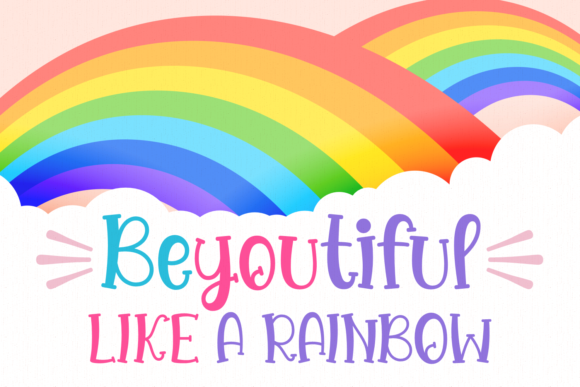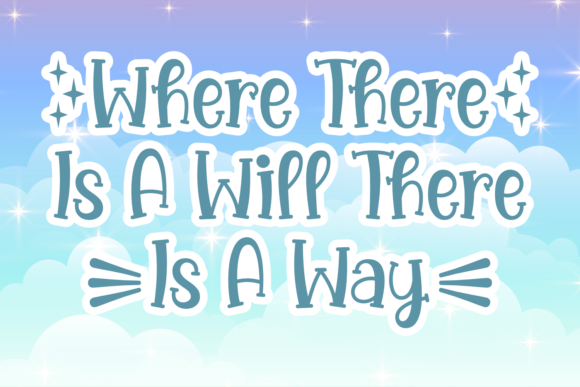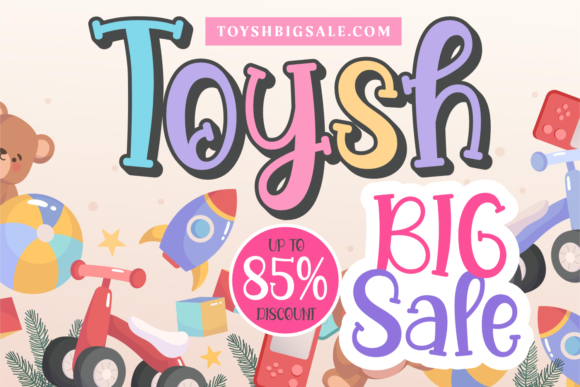
Introduction to Sheyla Blacky Font
Sheyla Blacky is a beautiful and light handwritten font with a unique feel and a stunning impact.
Key Features of Sheyla Blacky Font